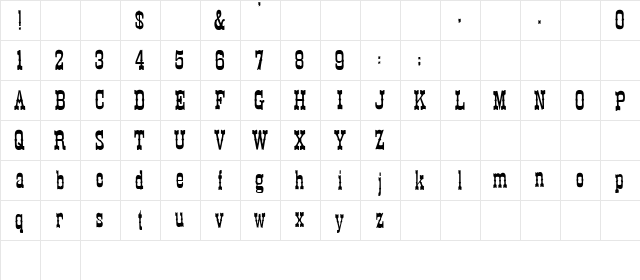
Townsend Regular
Design Context for Townsend Typeface
Townsend takes a measured approach to typography — its balanced proportions and neutral character make it a reliable workhorse for both digital and print work.